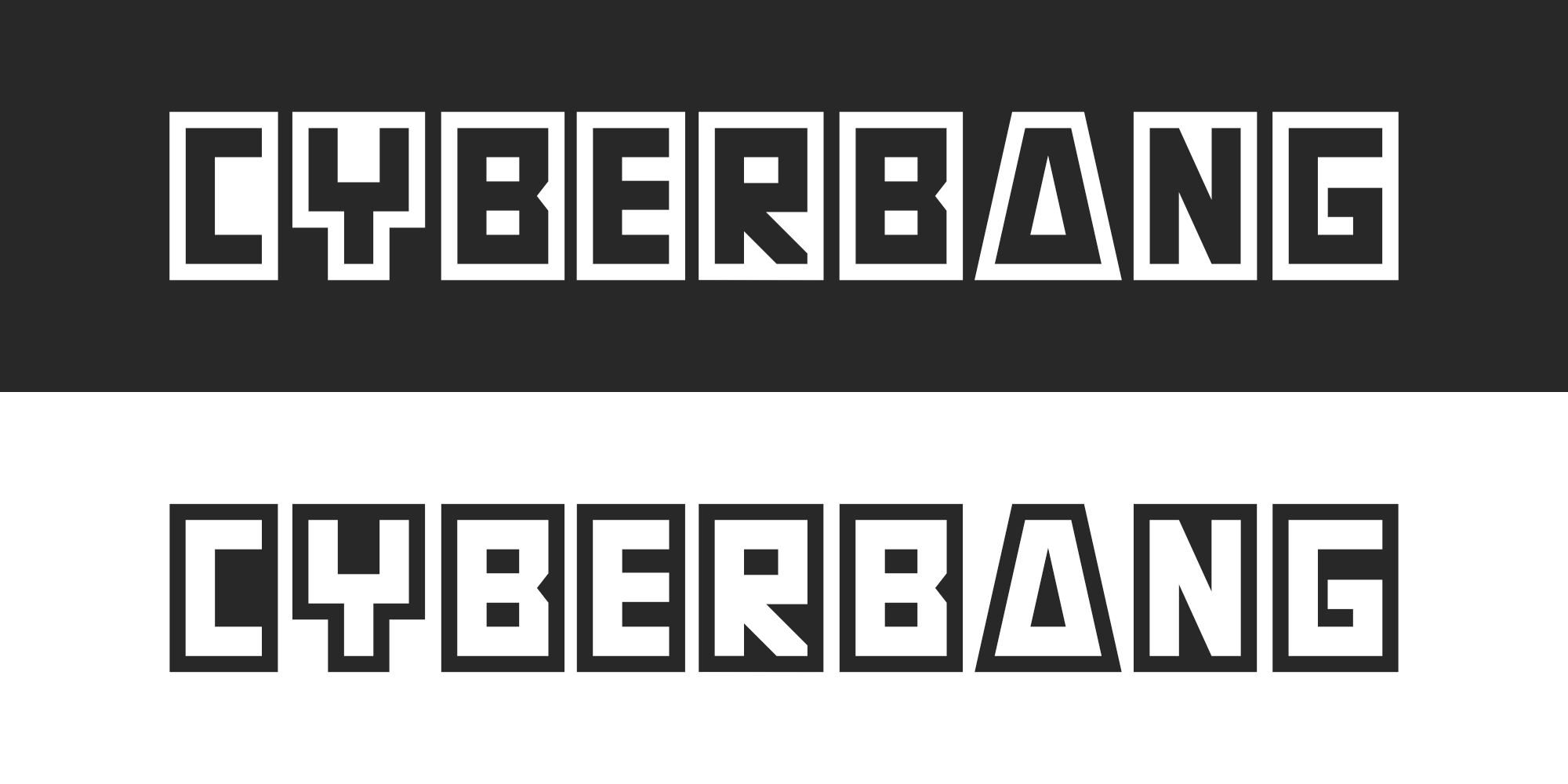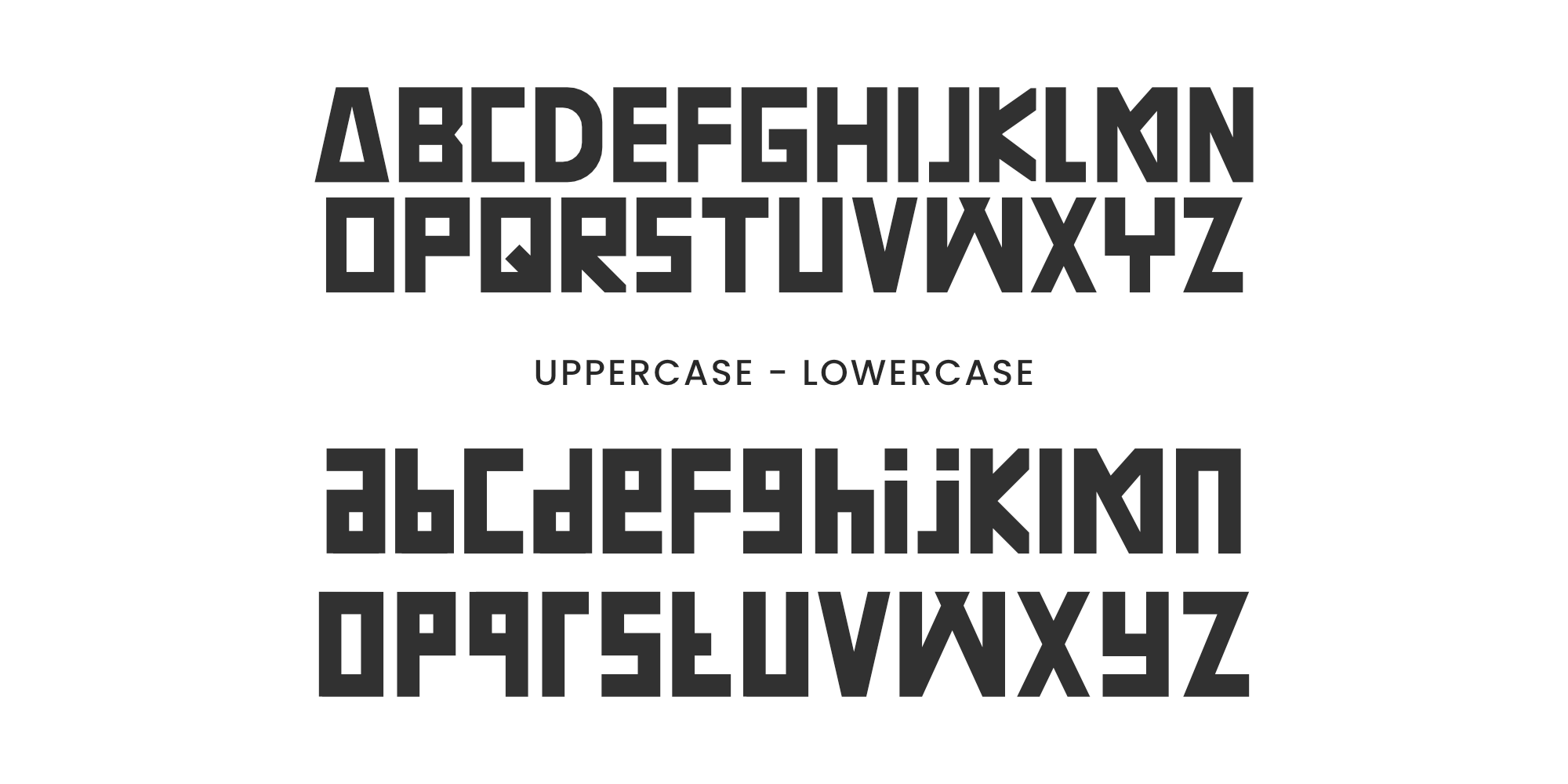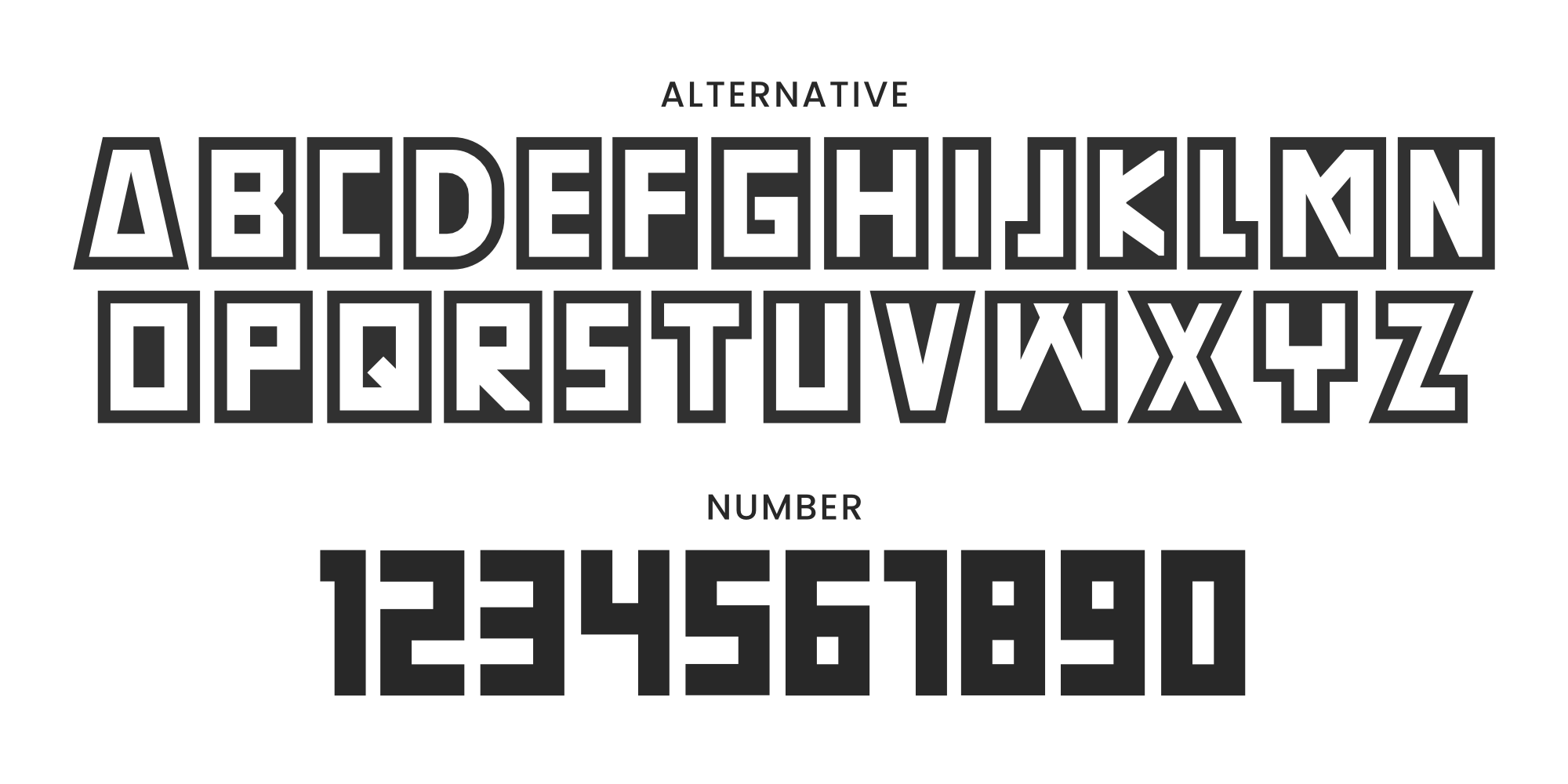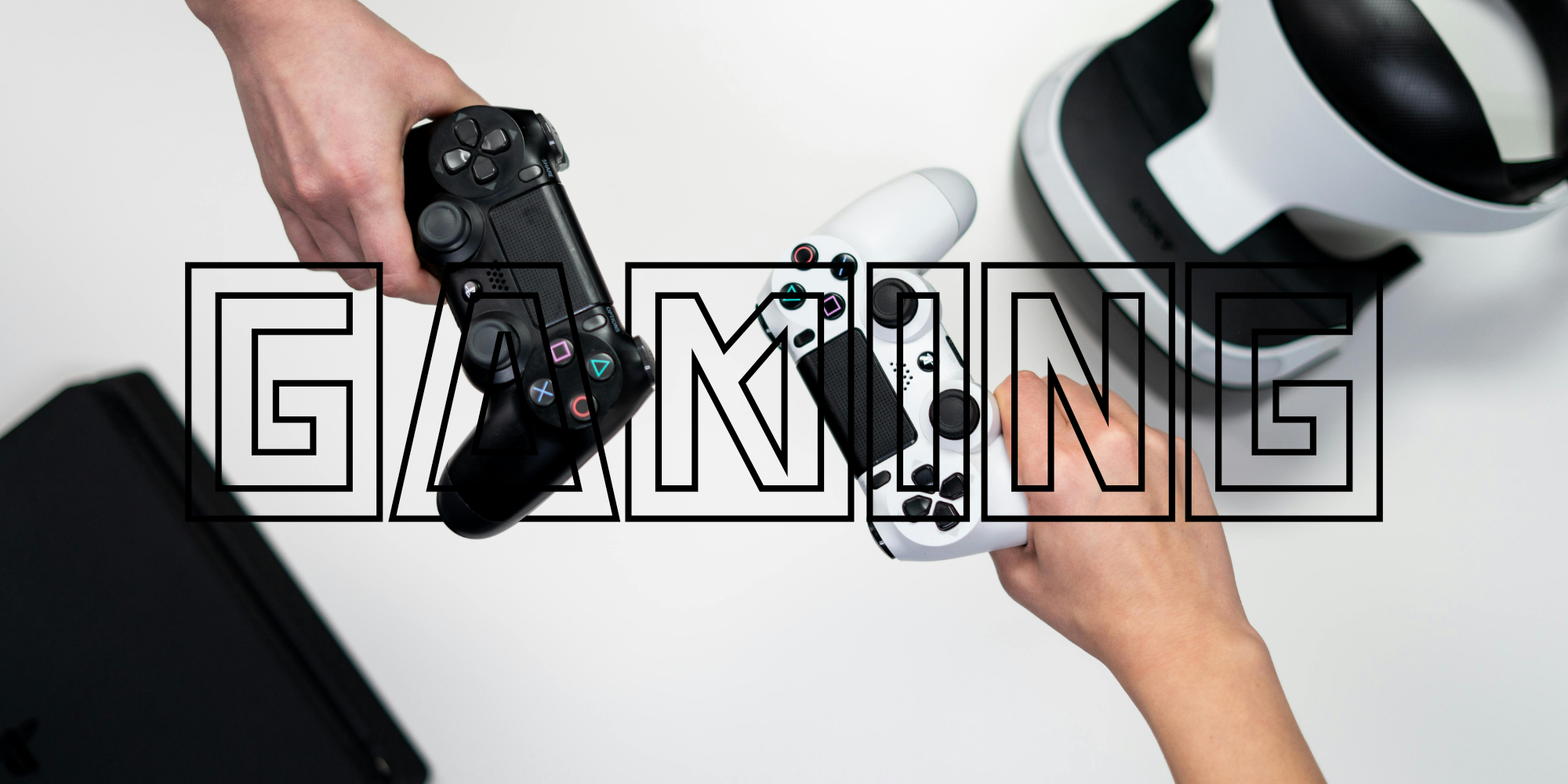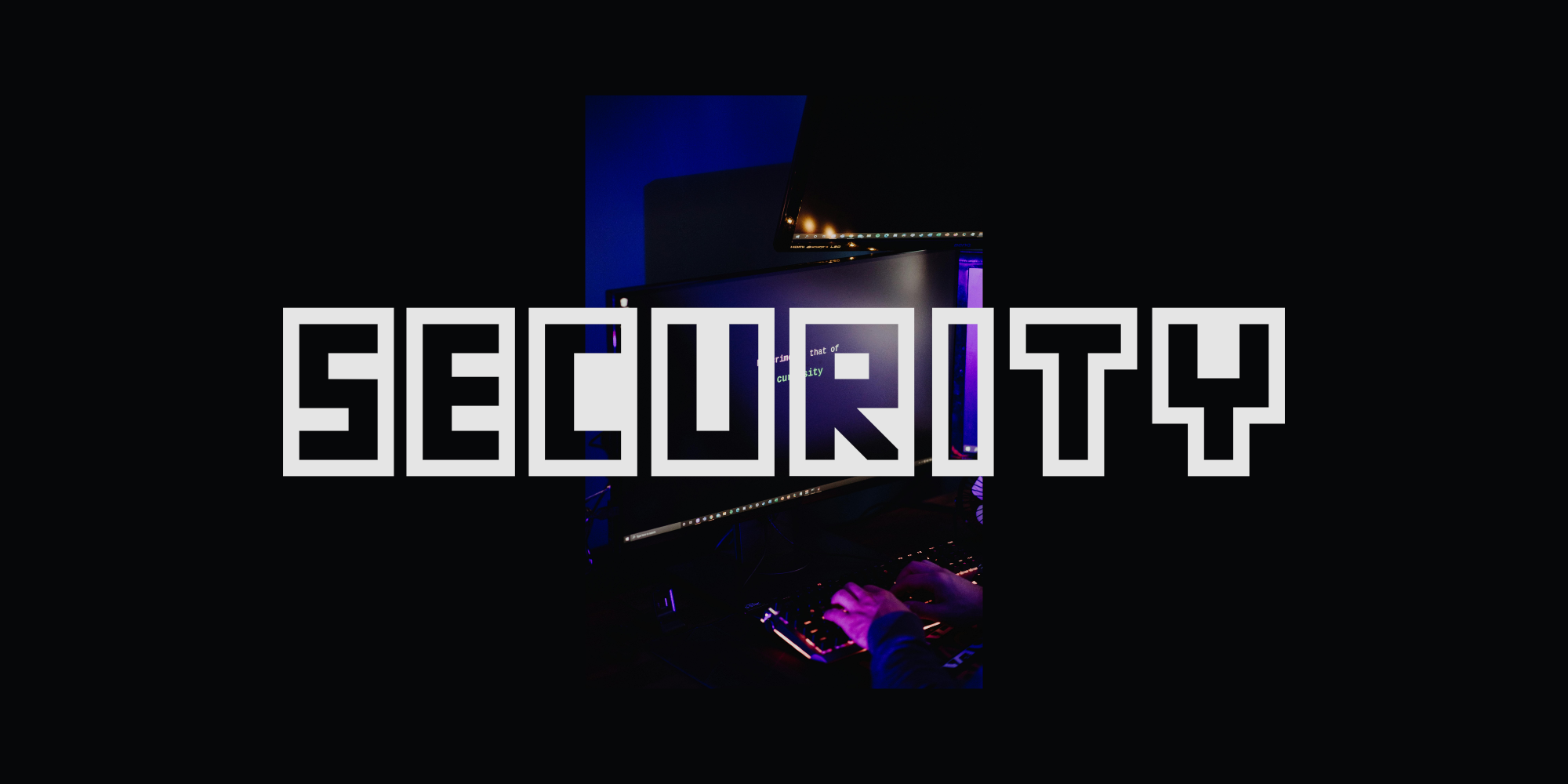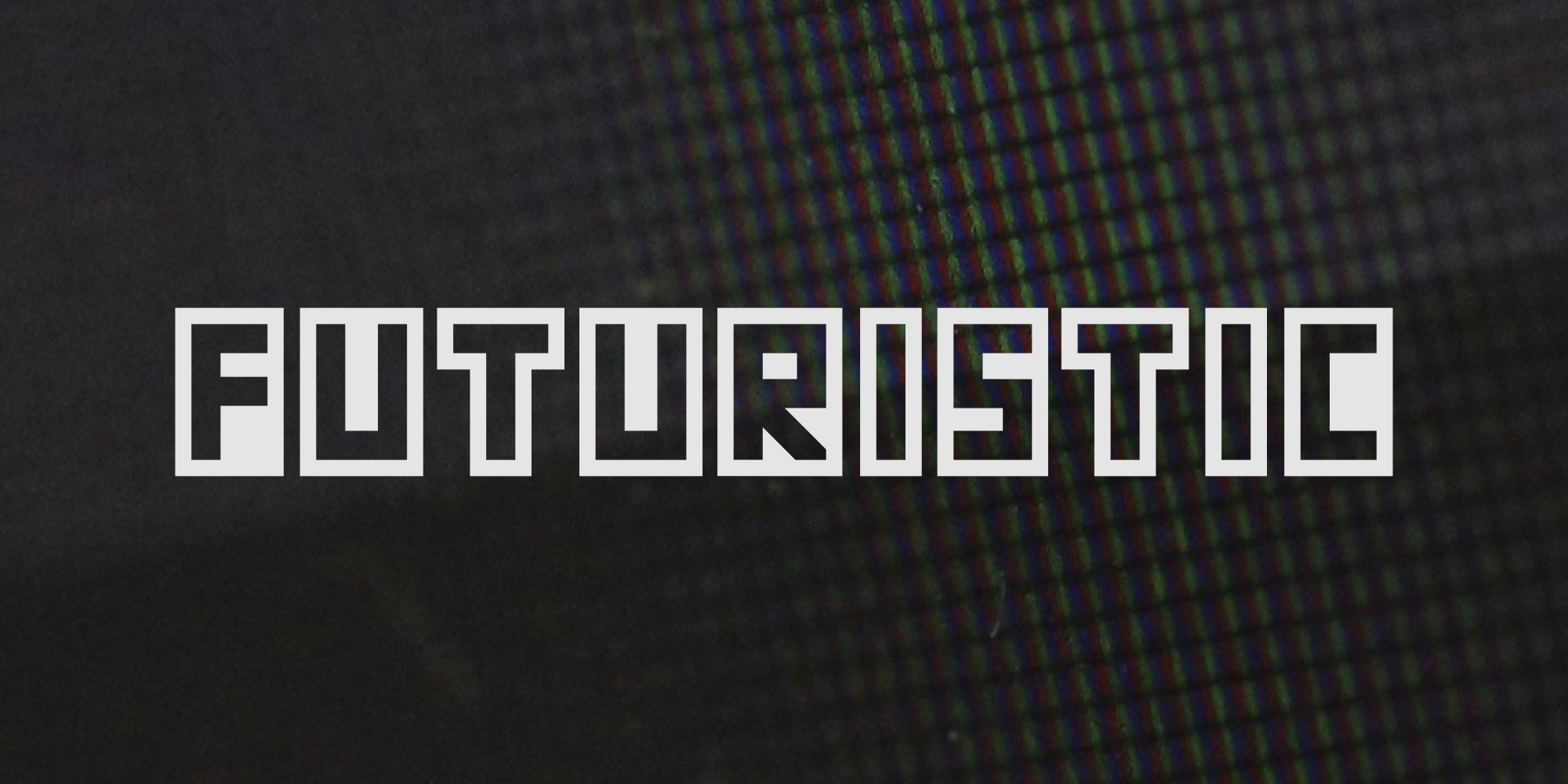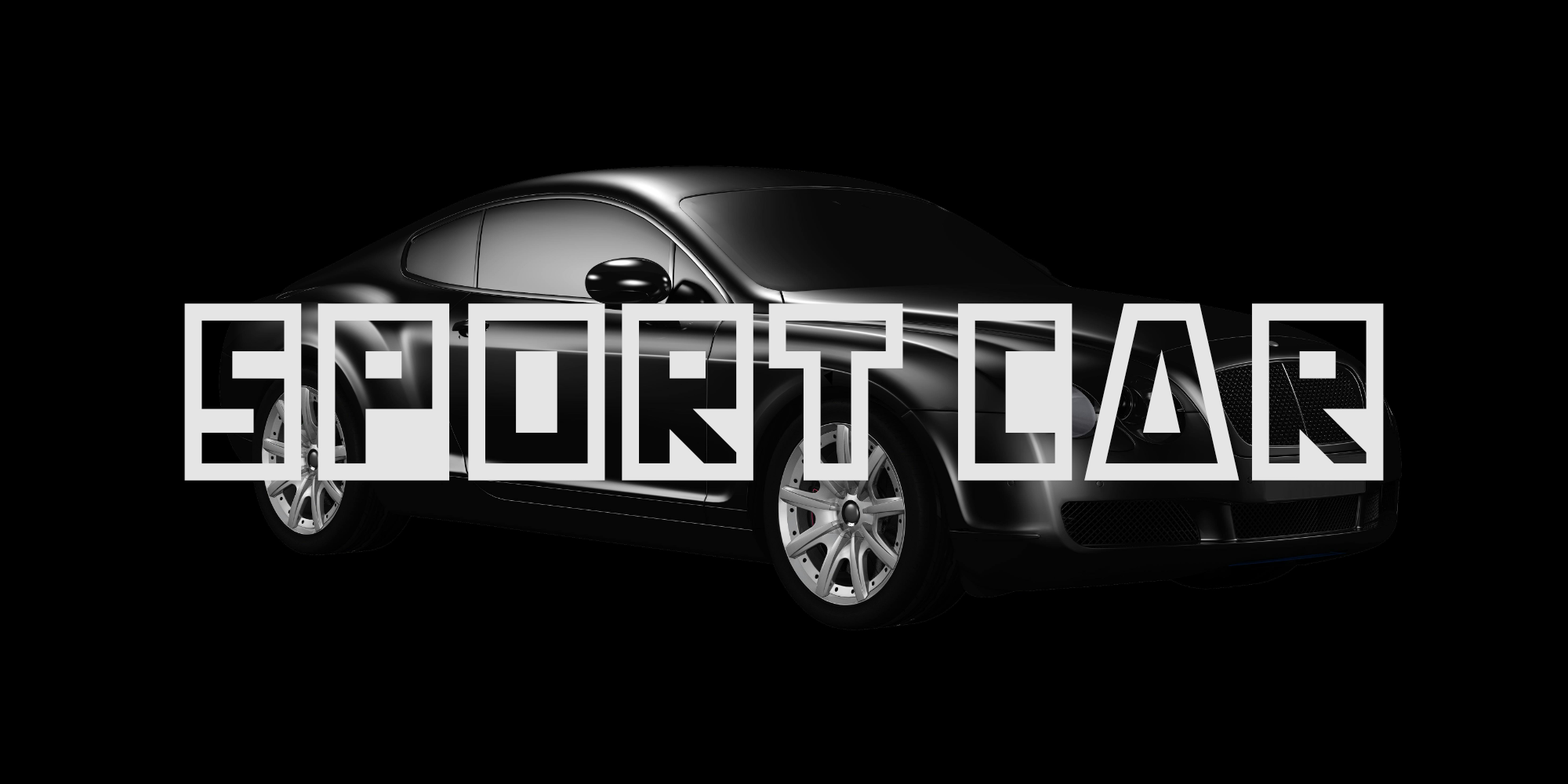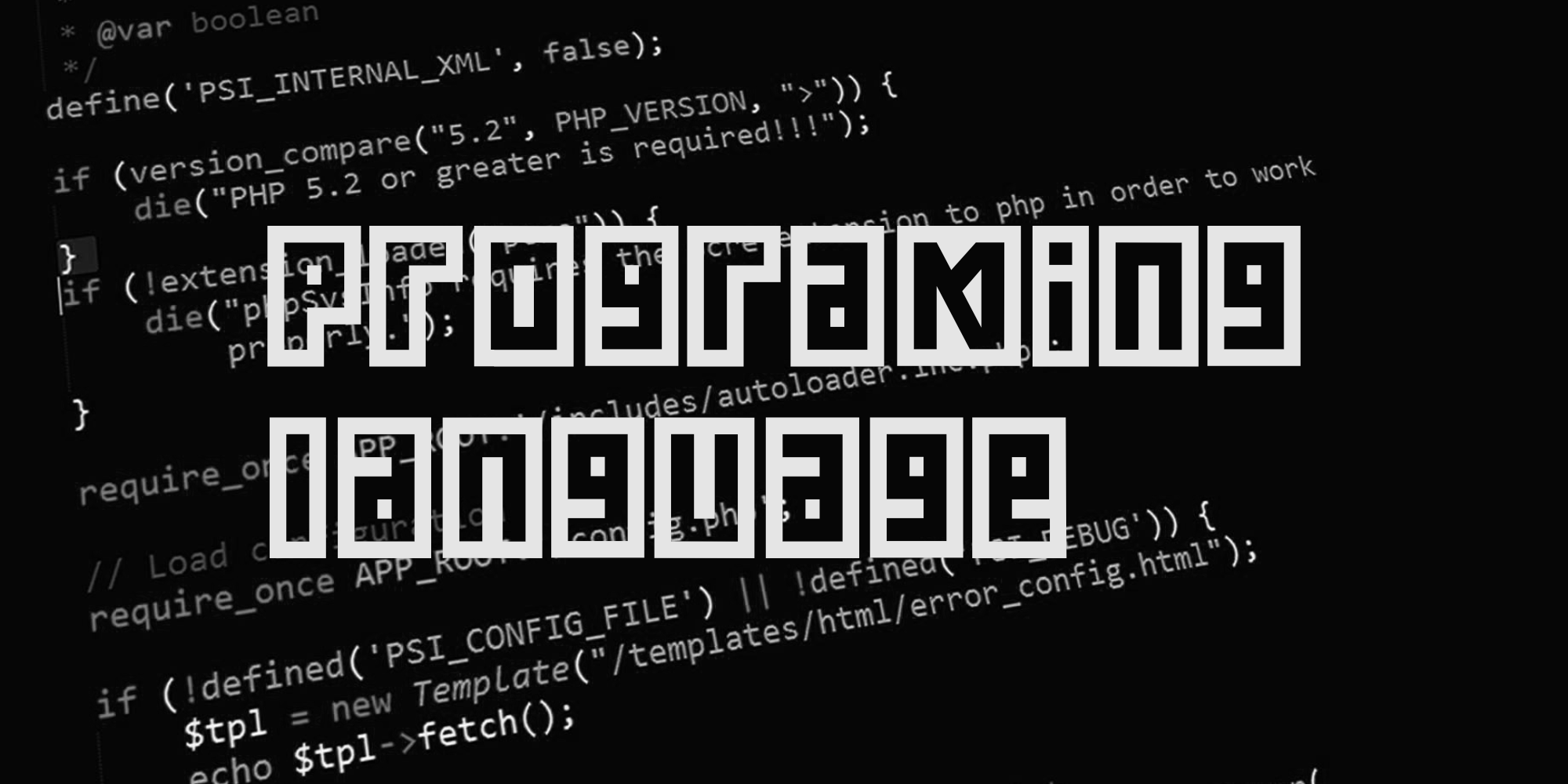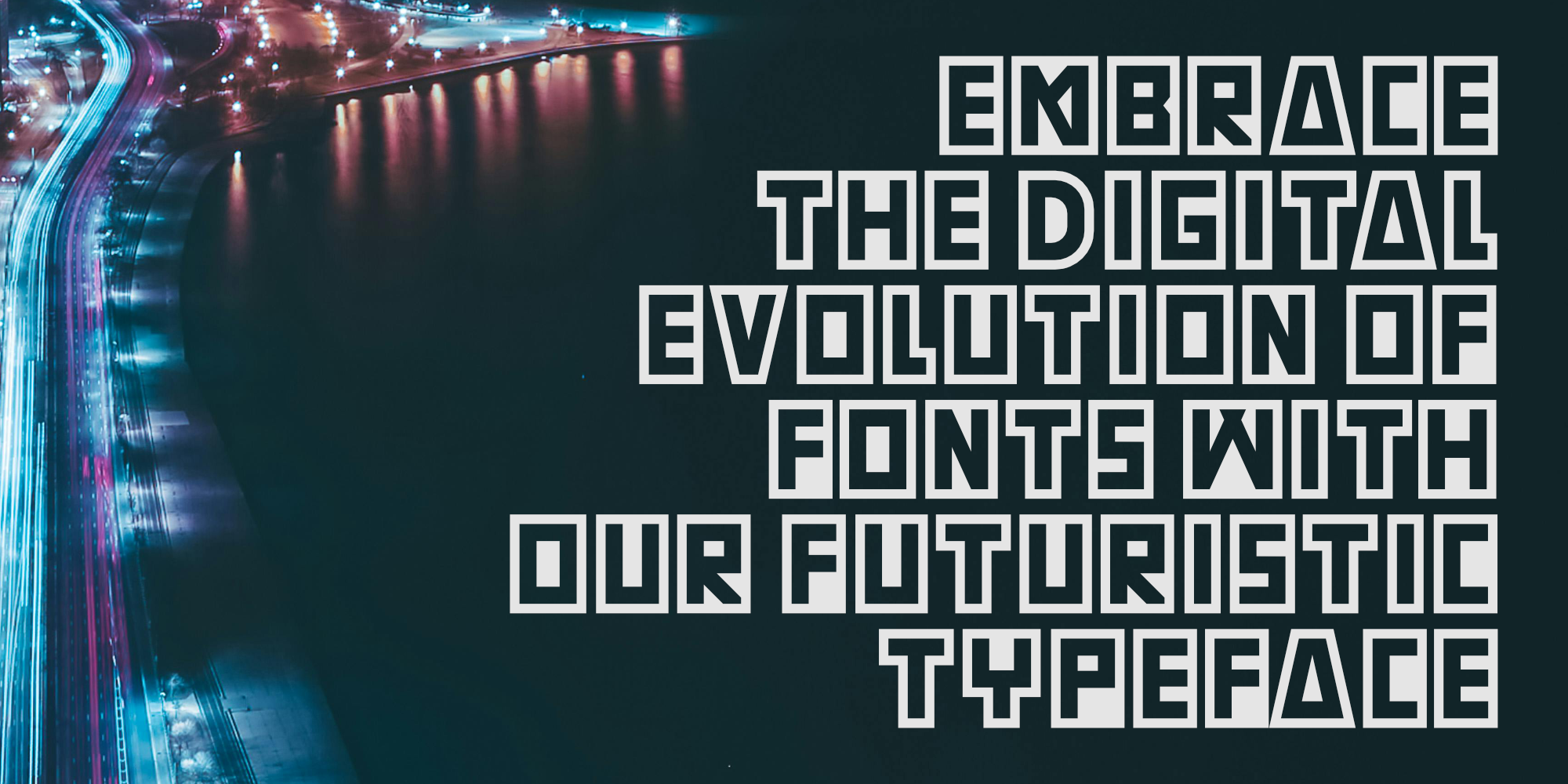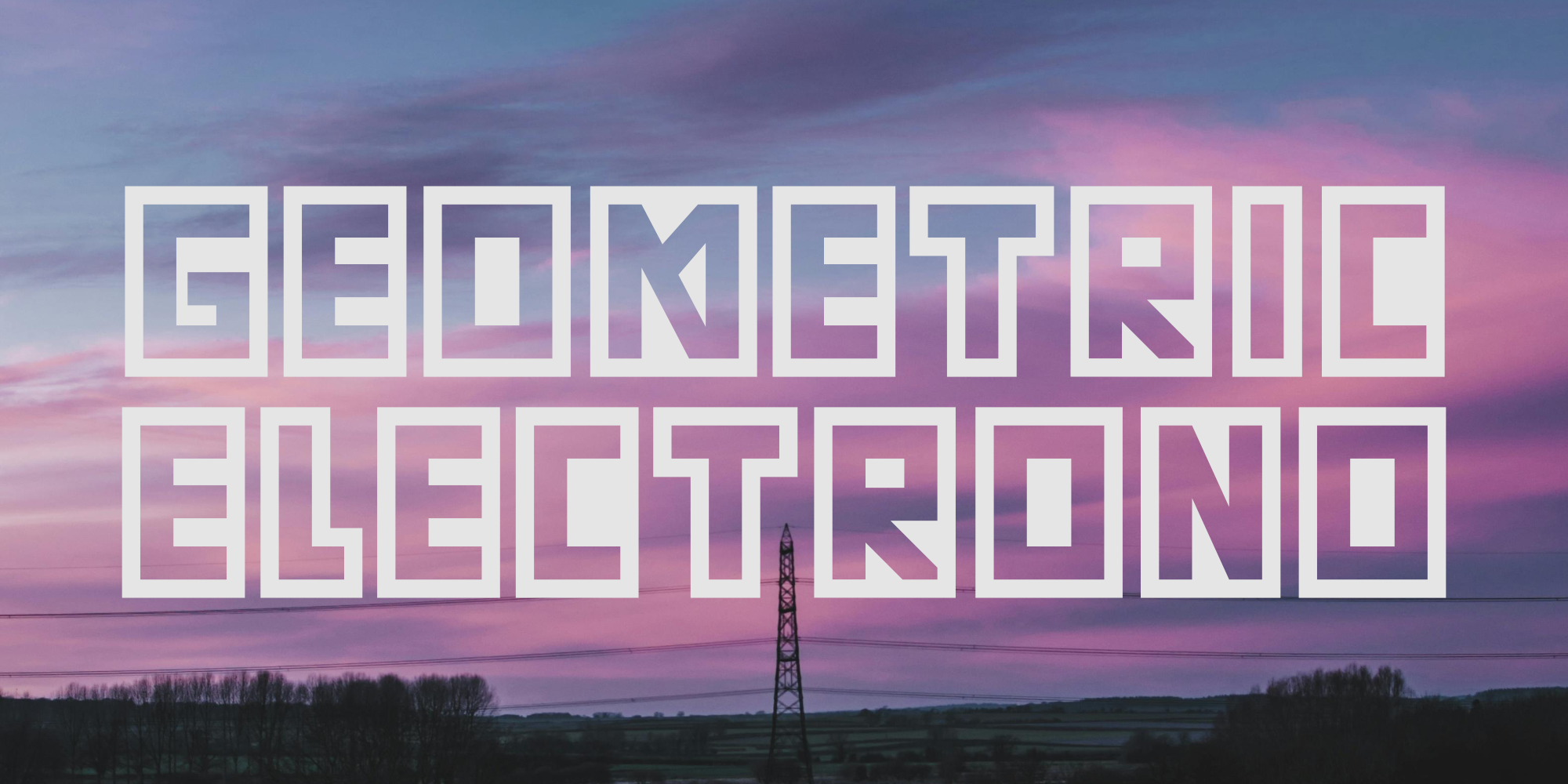
Cyberbang
Introducing Cyberbang — a cutting-edge sans-serif font inspired by the bold spirit of cyberpunk design.
Cyberbang combines modernity, boldness, and symmetrical precision to create a futuristic, visually striking display font. Featuring thick, dynamic characters, this typeface perfectly captures the essence of cyberpunk aesthetics — ideal for projects that demand a sleek, tech-driven, and avant-garde look. Every letter is meticulously crafted to embody the energy and spirit of tomorrow’s world.
Cyberbang – Cyberpunk Font
Introducing Cyberbang — a cutting-edge sans-serif font inspired by the bold spirit of cyberpunk design.ging, titles, headlines, and editorial design, this font combines sophistication with versatility.